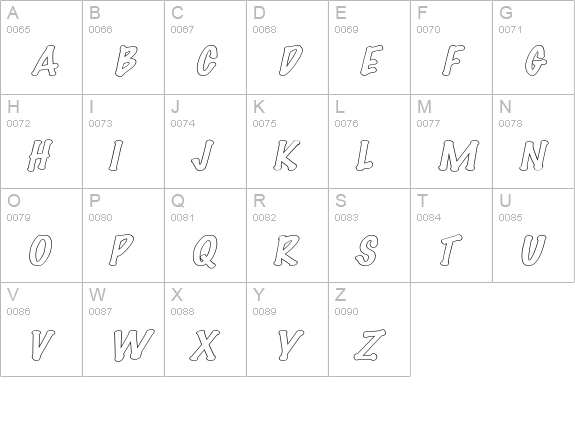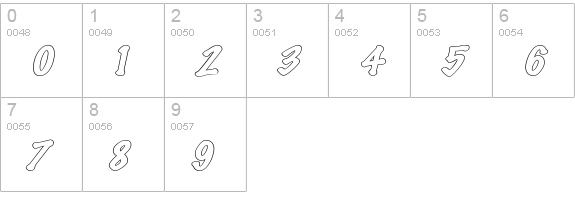
MarkerHollowExtended Italic Font Details
MarkerHollowExtended Italic is a distinctive, italic variant in the MarkerHollowExtended typeface family \xE2\x80\x94 well suited to design and typography projects.
MarkerHollowExtended Italic is a unique and captivating font that will add a touch of creativity and whimsy to any design project. With its elongated and slanted letterforms, this font exudes a sense of movement and playfulness, making it perfect for headlines, logos, and branding materials. The MarkerHollowExtended Italic font is a free typeface that offers a wide range of possibilities for designers looking to bring a fresh and modern look to their work. Its italicized style adds a sense of elegance and sophistication, making it suitable for both formal and informal designs. Whether you're designing a poster, a website, or a social media graphic, MarkerHollowExtended Italic will make your text stand out with its bold and eye-catching appearance. Its hand-drawn and slightly imperfect letterforms give it a human touch, making it feel authentic and approachable. What sets MarkerHollowExtended Italic apart is not only its unique design but also its accessibility. This font is freely available to download at FontsMarket.com, making it easily accessible to designers, students, and anyone looking to add a touch of creative flair to their projects. It is compatible with both Mac and Windows operating systems, ensuring that anyone can enjoy the benefits of this stunning typeface. Download MarkerHollowExtended Italic today and unleash your creativity. Let this font inspire you to explore new design possibilities and create stunning visuals that leave a lasting impression. Whether you're a professional designer or a hobbyist, this font is sure to elevate your work to new heights. Get your hands on MarkerHollowExtended Italic now and experience the power of free creative expression.